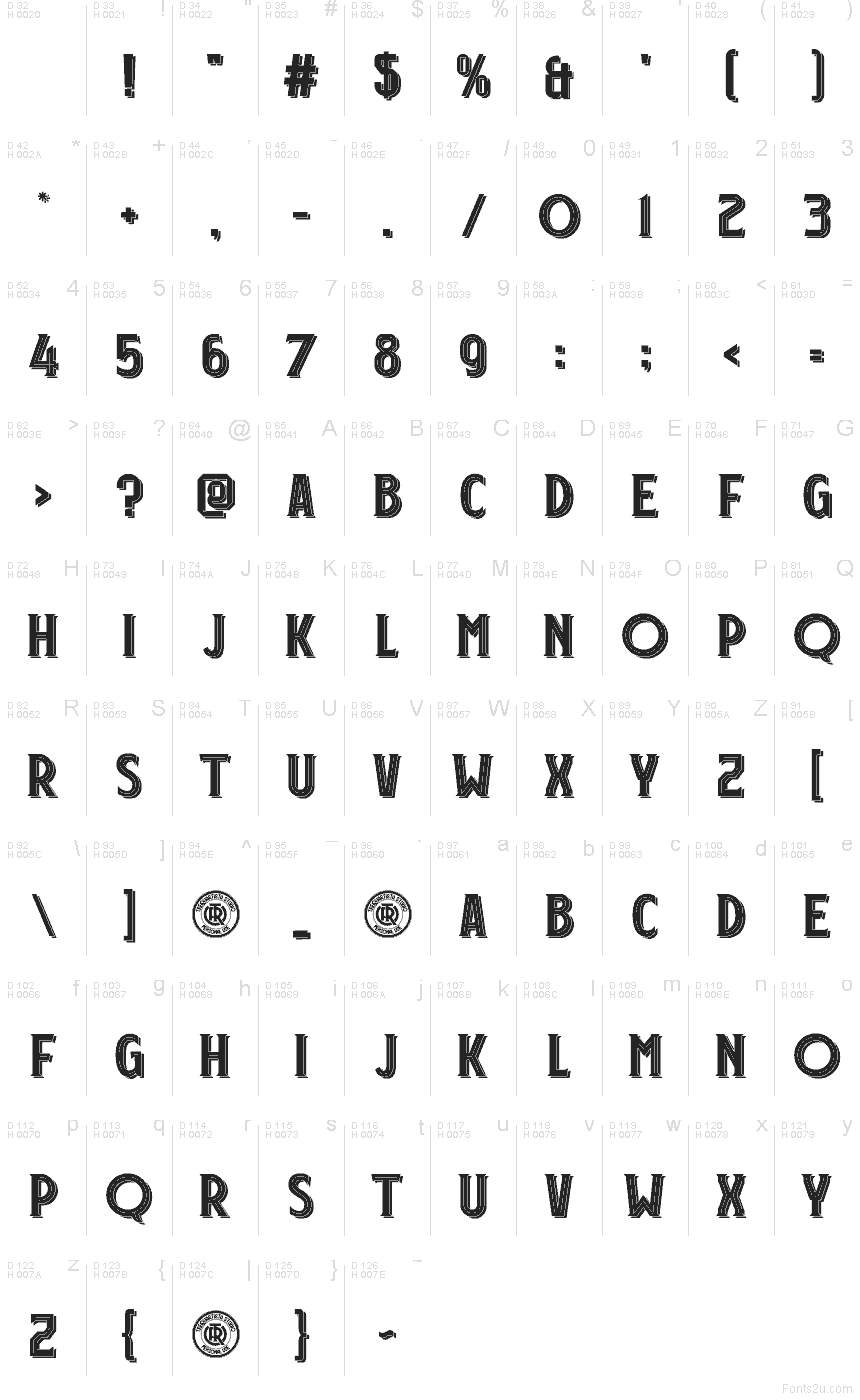
Tottenham 3 font by Trequartista Studio is a free techno display typeface that fuses retro glam with a futuristic edge. Tall, upright letters are carved into layered, concentric strokes that feel like neon tubing or chrome inlay, giving every word a sense of depth and motion. The tight rhythm and repeating lines create a bold, mechanical pulse that jumps off dark backgrounds and glows on lighter ones, making the Tottenham family instantly recognizable at a glance.
Using Tottenham 3, headlines don’t just speak, they pulse-this free font shines on nightclub flyers, gaming titles, sci‑fi posters, esports branding, album covers, and bold event logos. The geometric structure keeps even its most ornate forms readable at larger sizes, while the striped, metallic feel adds texture without needing extra effects. Pair Tottenham 3 with a clean, unadorned sans serif for body text and keep it big and spacious so the layered strokes can breathe.